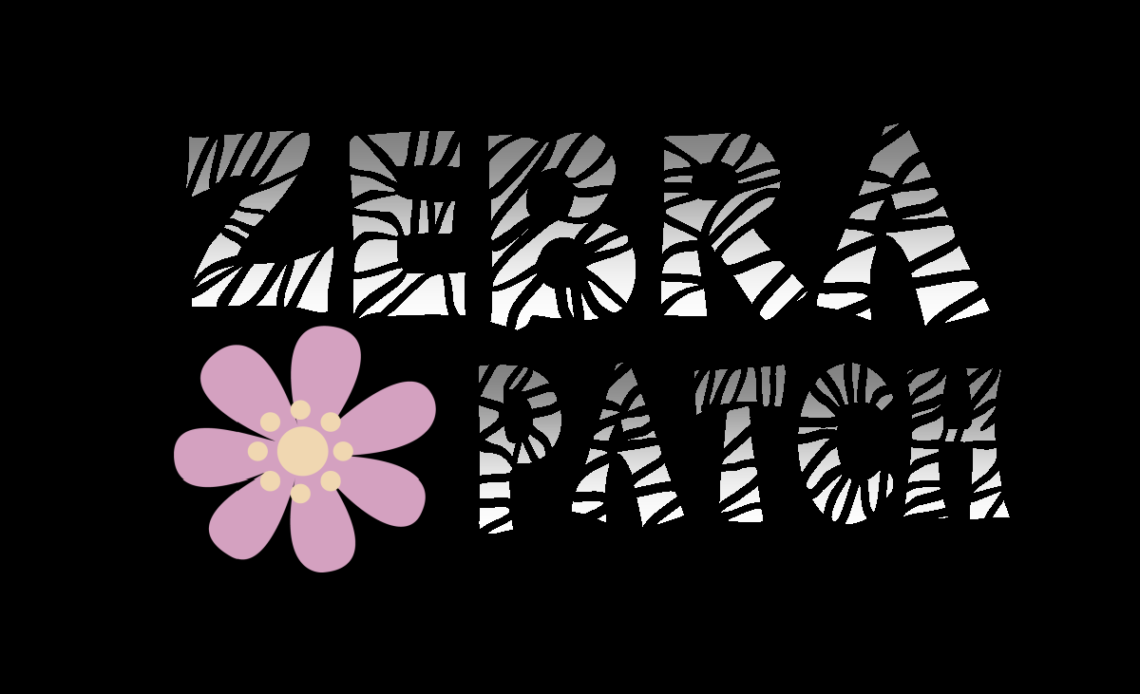
Get ready to revolutionize your design projects with KB3 Zebra Patch, a font family that's as distinctive as its namesake. Inspired by the captivating stripes of the zebra, this collection brings a wild yet sophisticated touch to your creative arsenal.
KB3 Zebra Patch is a display font family that dances between elegance and playfulness. Its artistic roots lie in the realm of graffiti, adding a touch of urban energy to your designs. The characters mimic the bold and confident lines of a skilled graffiti artist, giving your projects an irresistible edge.
This font family is the brainchild of K26Fonts, a studio dedicated to crafting typefaces that captivate and inspire. With KB3 Zebra Patch, they've created a font that effortlessly elevates your designs, transforming them into captivating works of art.
KB3 Zebra Patch is a versatile family, capable of adding a touch of charm to any project. Its playful nature makes it ideal for funky headlines or eye-catching branding. It adds a touch of whimsy to invitations, greeting cards, and social media graphics.
Designers who embrace non-conformity will find a kindred spirit in KB3 Zebra Patch. It's the perfect choice for those seeking to break free from the mundane and express their individuality. Its bold strokes and captivating curves invite you to think outside the box and create designs that leave a lasting impression.
So, whether you're a seasoned designer looking to expand your font library or a creative enthusiast seeking a font family that matches your vibrant personality, KB3 Zebra Patch is the perfect choice for you. Embrace its wild spirit and watch your designs take on a life of their own.